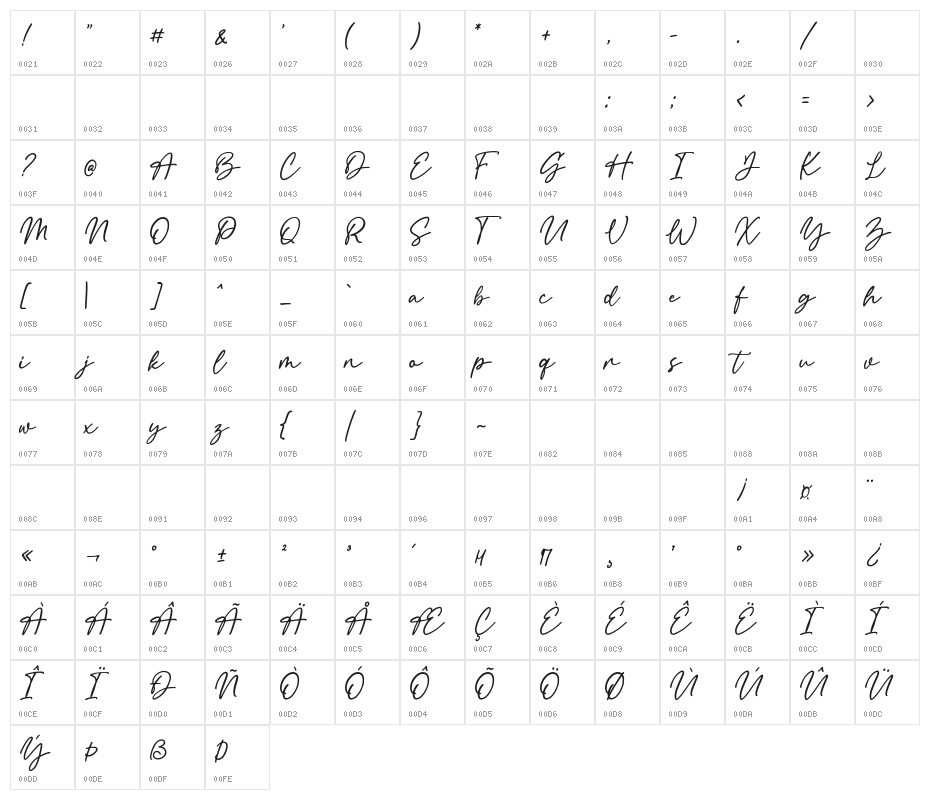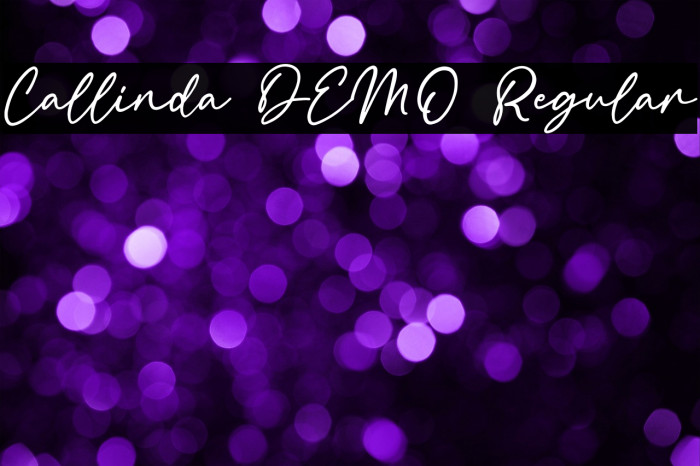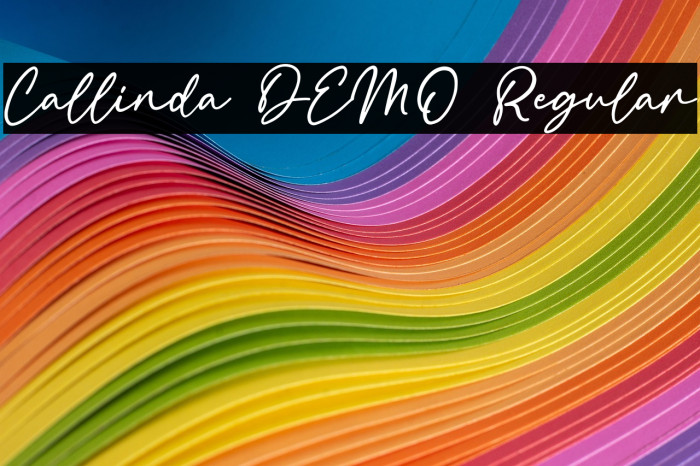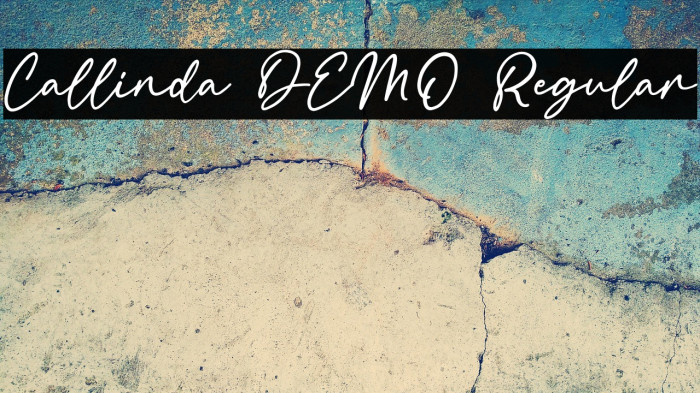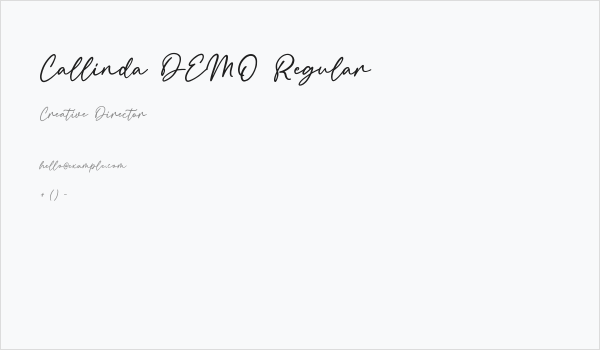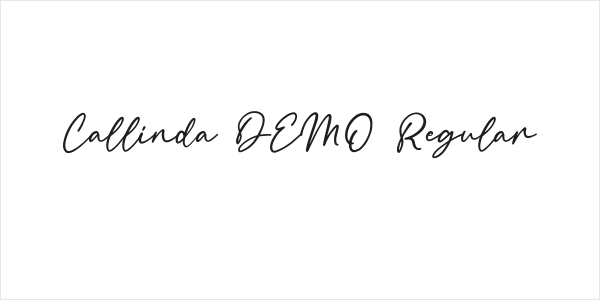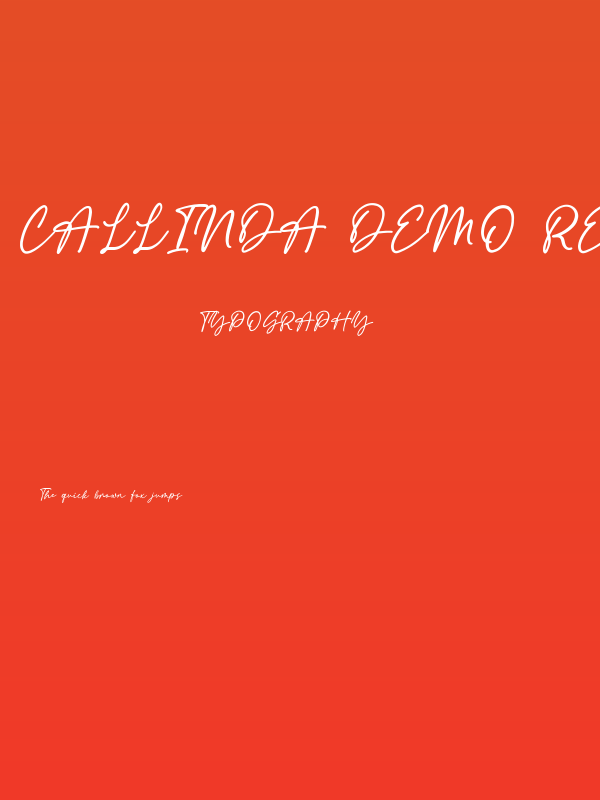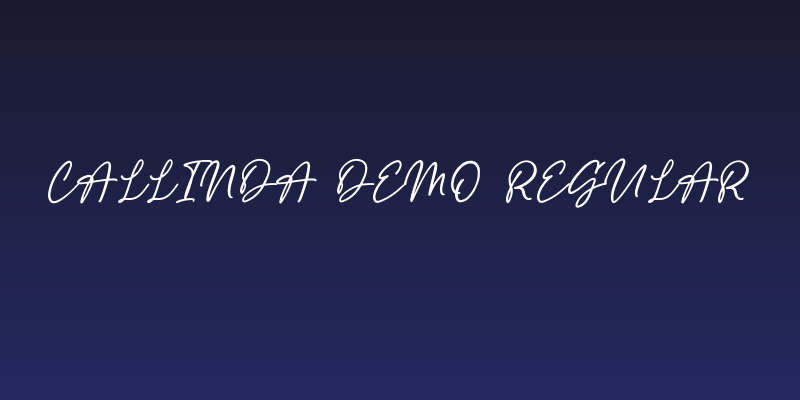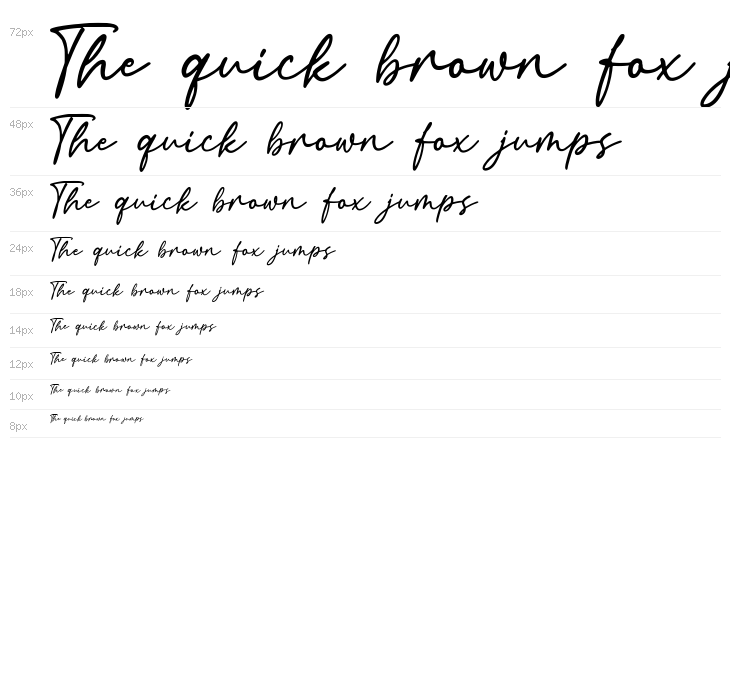
Callinda DEMO Regular Font
Callinda DEMO Regular Description
This elegant script font features a flowing, handwritten style that exudes sophistication and charm. The characters are gracefully connected, providing a seamless and fluid appearance. The uppercase letters are slightly more ornate, with subtle flourishes that add a touch of elegance. The lowercase letters maintain a consistent rhythm, enhancing readability while retaining a stylish flair. The numerals and special characters are crafted with the same attention to detail, ensuring a cohesive look across all text elements. This font is perfect for projects that require a personal touch, such as invitations, greeting cards, and branding materials.
| Overall Style | Elegant, Handwritten |
| Use Case | Headlines, Invitations, Branding |
| Proposed Projects | Ideal for wedding invitations, greeting cards, personal branding, and elegant packaging designs. |